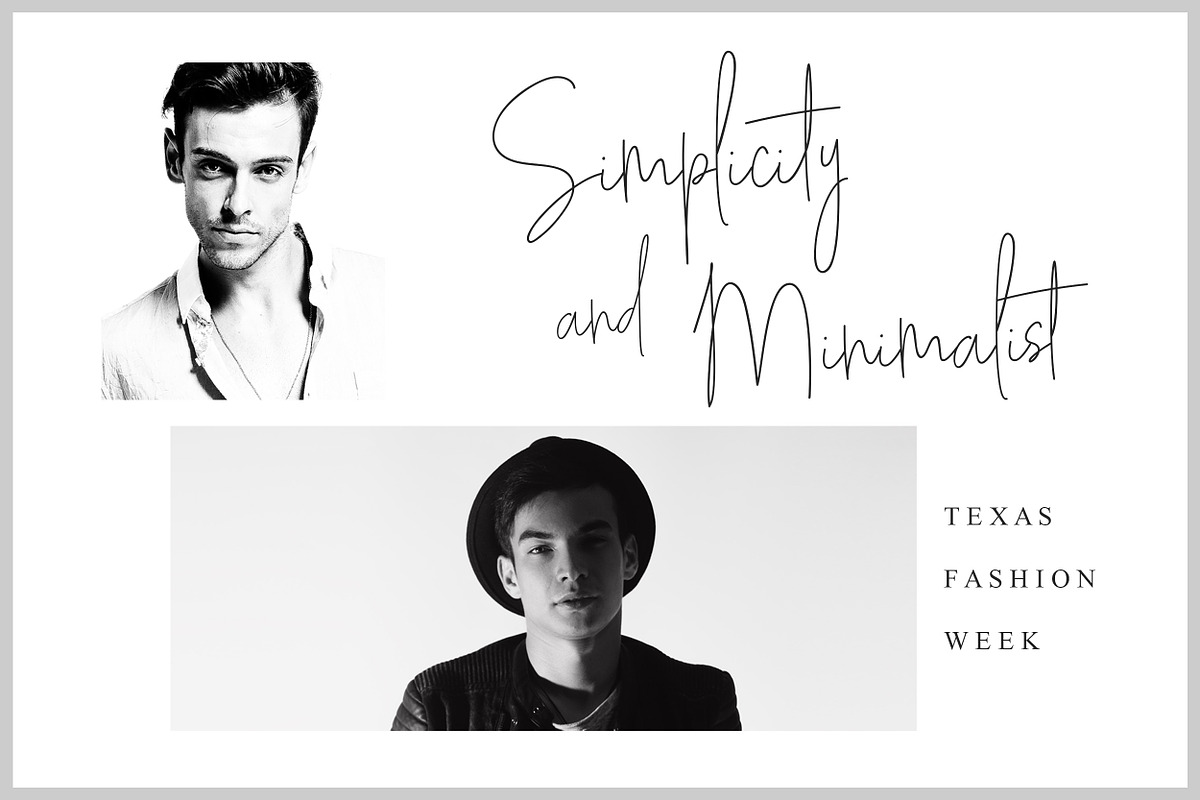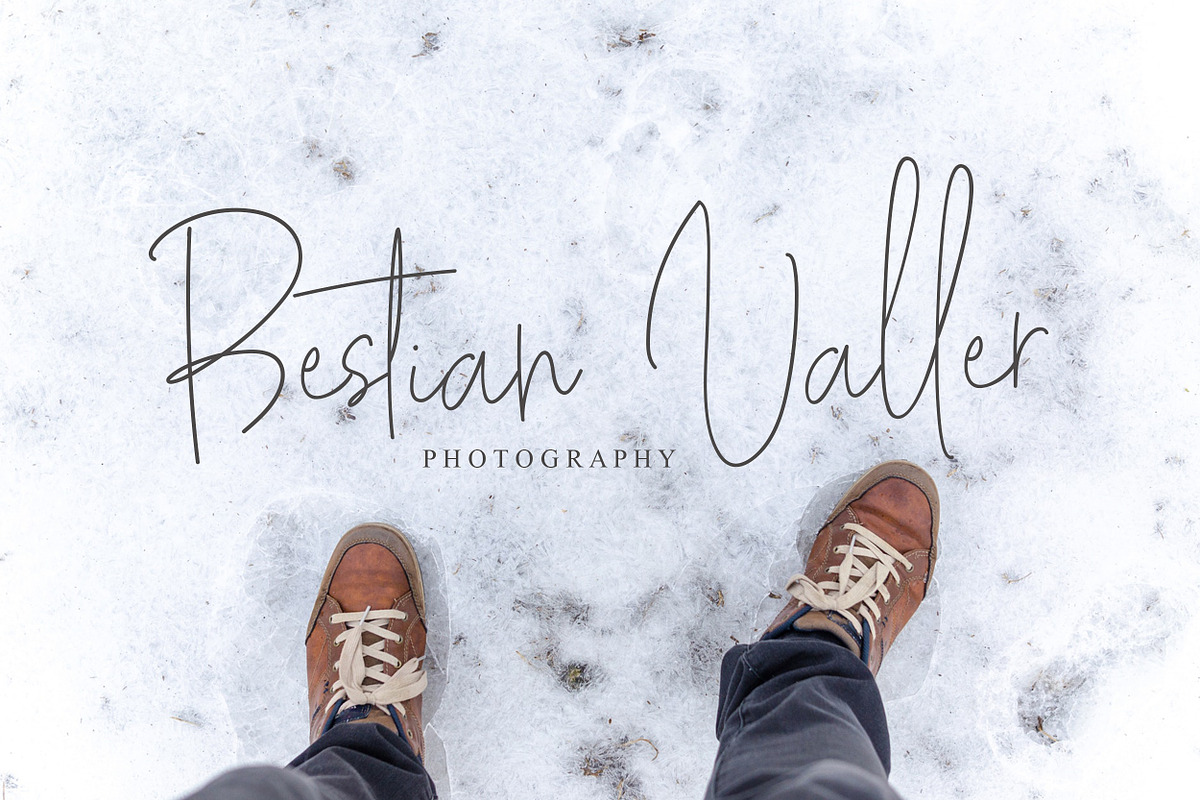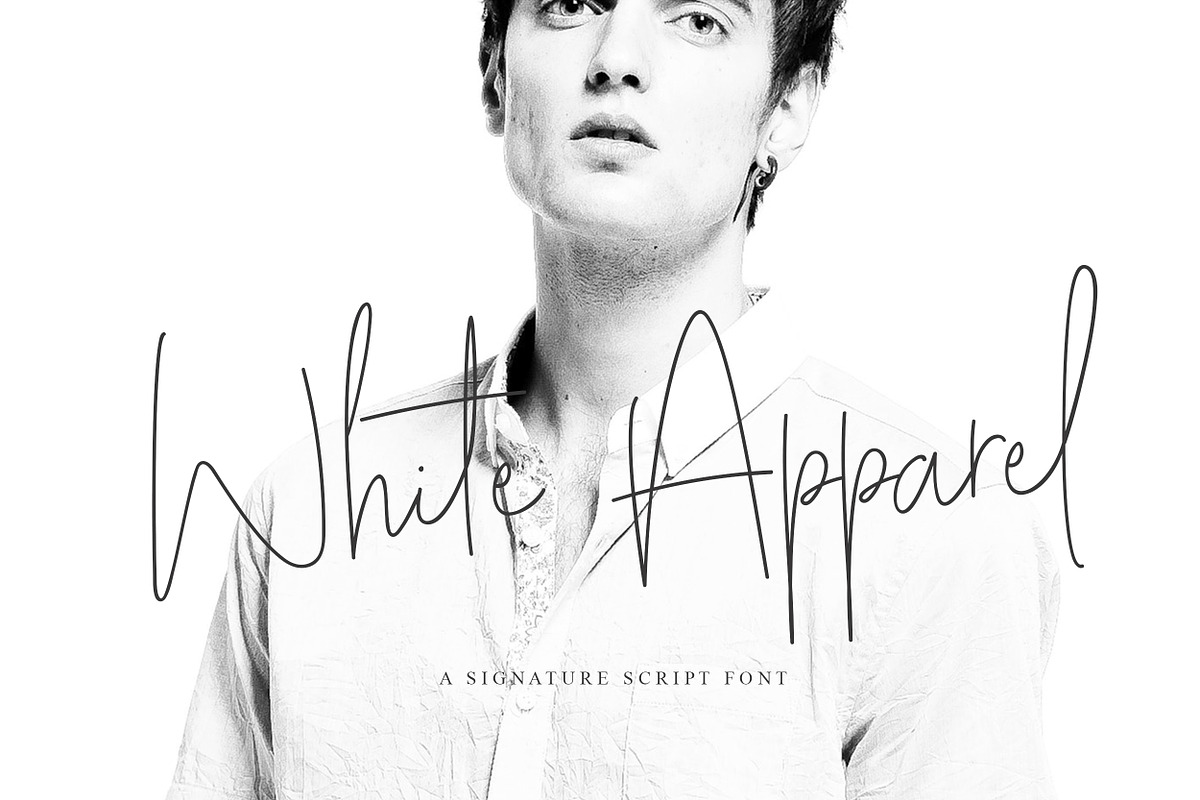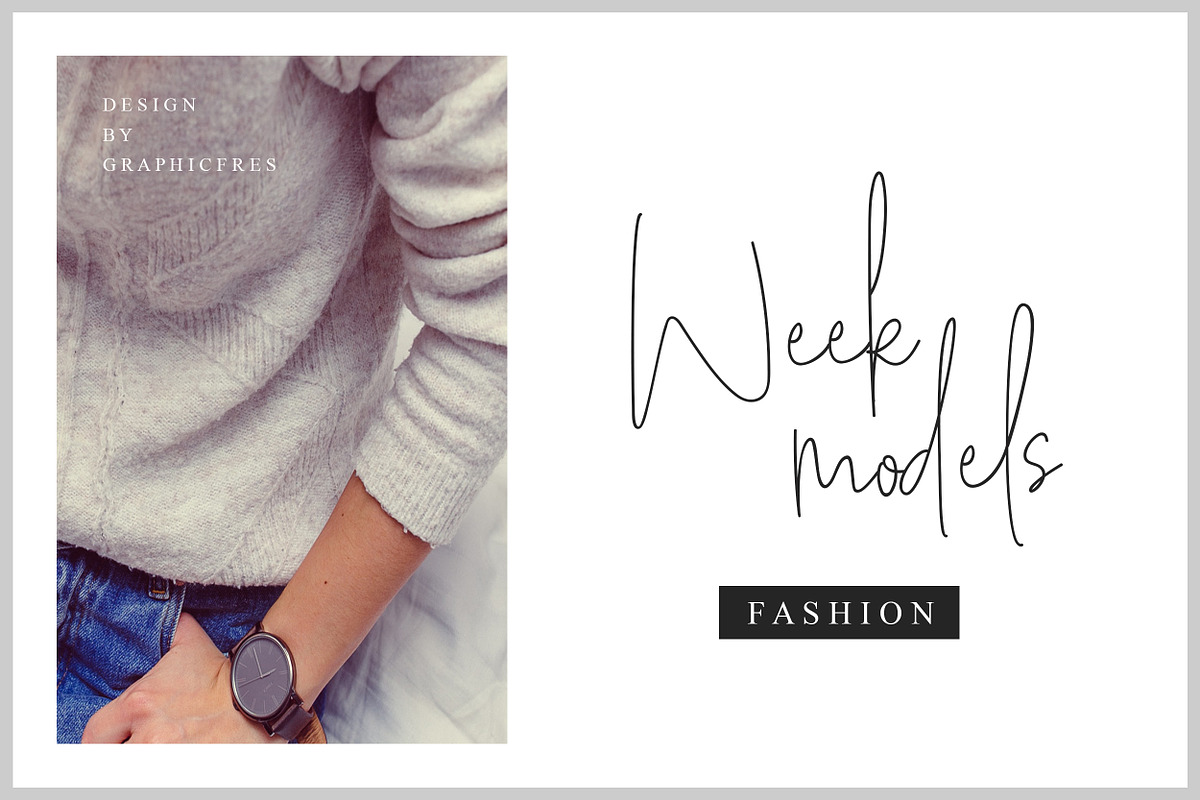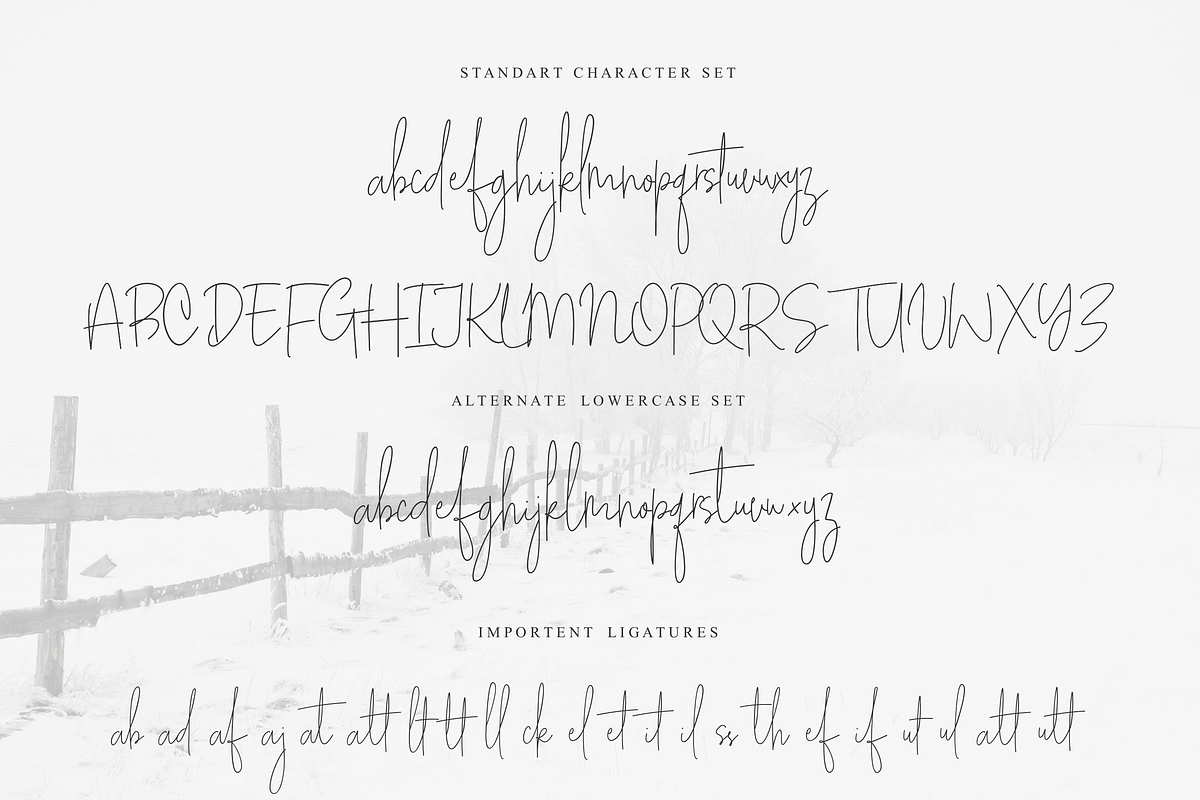
White Apparel | Script Font
White Apparel | Script Font - A Handwritting script and unique character! it's perfect for logos, name card, magazine layouts, invitations, headers, or even large-scale artwork.
1. White Apparel - A clean and Italic version, script font including upper & lowercase characters, numerals and more of symbols.
2. White Apparel Alt - This is a second version of White Apparel, with a completely new set of upper & lowercase characters. Included Italic Version
- White Apparel - A clean and Italic version, script font including upper & lowercase characters, numerals and more of symbols.
- White Apparel Alt - This is a second version of White Apparel, with a completely new set of upper & lowercase characters.